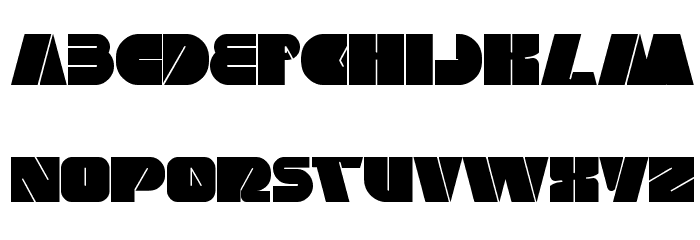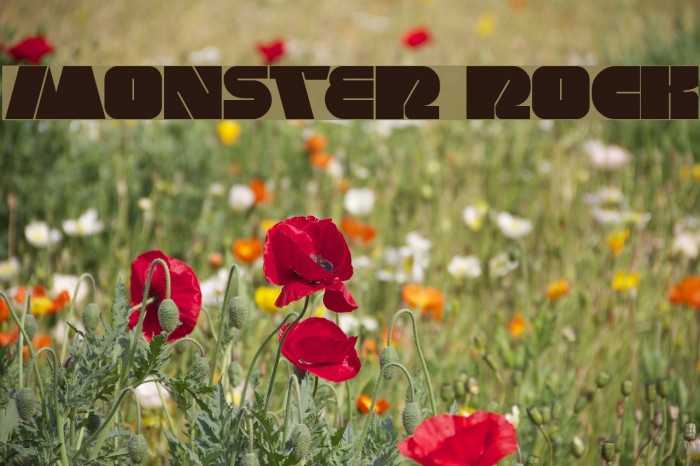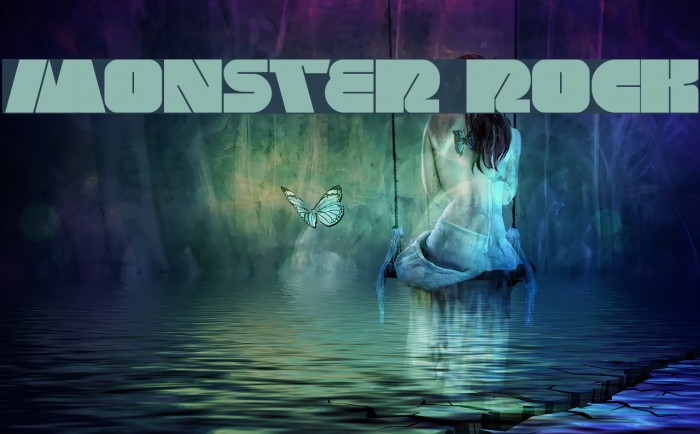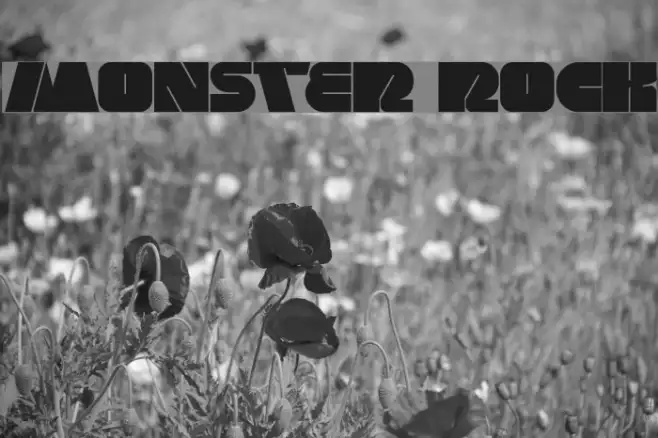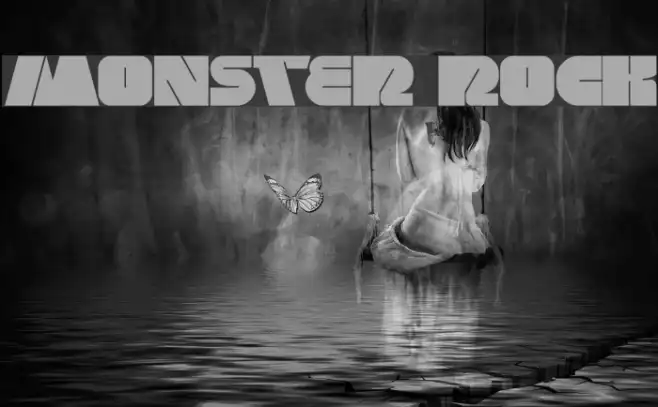
monster rock Font
This font features a bold and geometric design with a distinctively modern and edgy appearance. The characters are constructed with sharp angles and thick strokes, creating a strong visual impact. The uppercase letters are particularly striking, with each character exhibiting a unique cut-out style that adds to the font's dynamic and futuristic feel. The overall design is highly stylized, making it ideal for projects that require a bold statement. The font's angular and blocky nature gives it a robust and industrial look, suitable for modern and creative applications.
A bold, geometric font with sharp angles and a modern, edgy style.
- Proposed Projects: Ideal for branding, posters, album covers, and any project needing a bold, modern aesthetic.